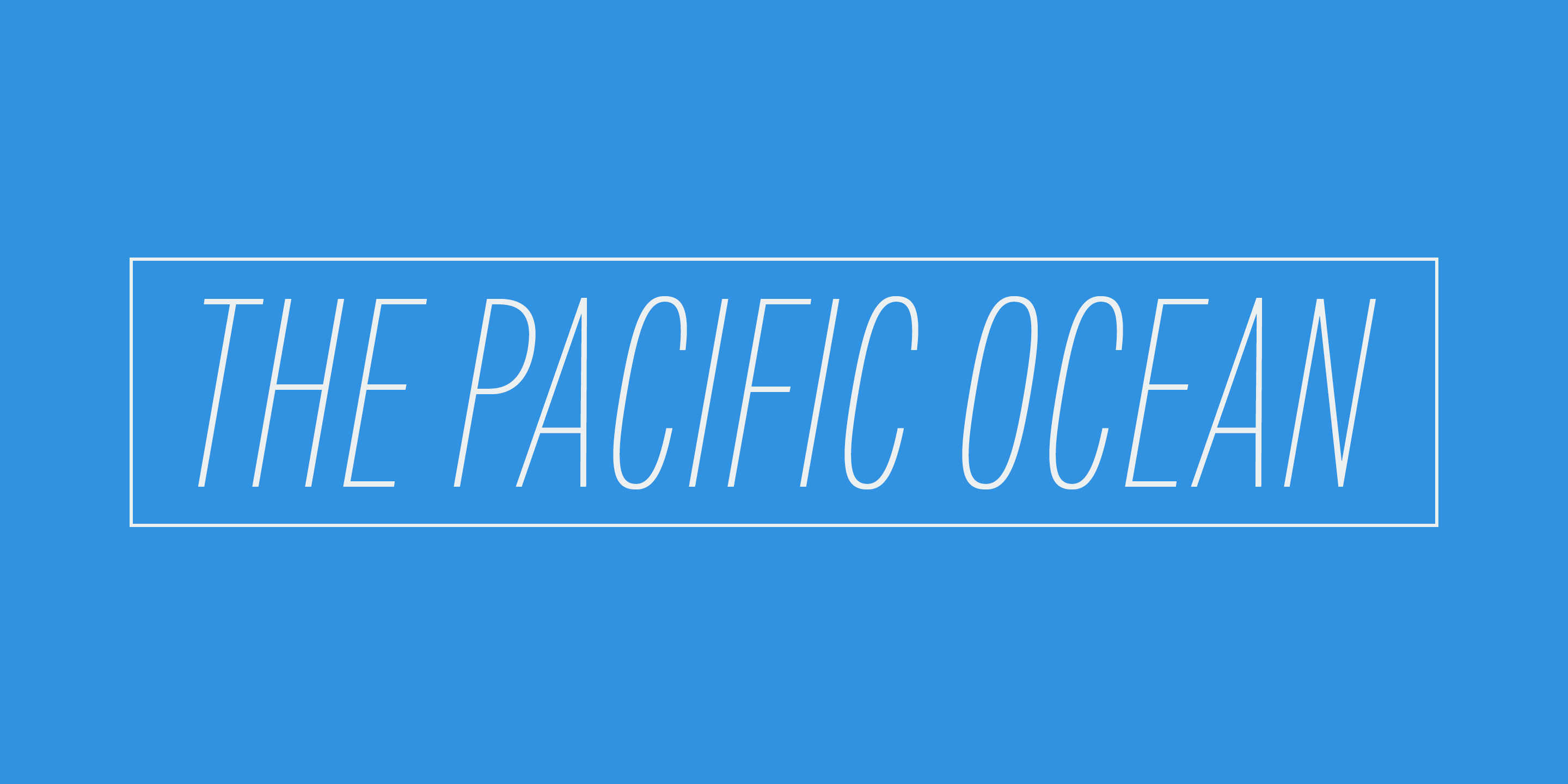
The Fairweather Font is exceptionally versatile and well-suited for projects that aim for a friendly yet sophisticated aesthetic. Its often humanist sans-serif design, characterized by open, legible forms and a subtle warmth, makes it an excellent choice for lifestyle branding, contemporary editorial layouts, and inviting website interfaces. It's ideal for packaging for artisanal products, independent coffee shops, and community-focused organizations where an authentic and welcoming feel is desired. Furthermore, consider Fairweather Font for blog headers, social media graphics, and personal stationery that need to convey warmth and genuine appeal. Its clarity and balanced proportions also make it perfect for educational materials and user-friendly digital applications.
What makes the Fairweather Font so exciting is its ability to strike a perfect balance between professional polish and approachable charm. It often features subtly rounded corners or a handcrafted touch that softens its impact without sacrificing legibility. This characteristic allows it to communicate a sense of reliability, friendliness, and modern sensibility, making your message resonate with genuine appeal. It’s a font that doesn't just display text; it creates a connection, adding a layer of contemporary warmth and inviting sophistication to any creative endeavor. Its distinctive aesthetic ensures your work will appear polished, personable, and highly effective.
The Fairweather Font family typically boasts a comprehensive range of weights to maximize its utility and allow for robust typographic hierarchies. You'll often find a wide selection, from Thin and Light to Regular, Medium, SemiBold, and Bold, usually accompanied by corresponding italic styles. More extensive families might even include ExtraBold or Black weights, providing even greater flexibility for creating distinct visual impacts, from delicate headlines to strong emphasis. This broad spectrum ensures designers can maintain a consistent visual theme while adapting the font to diverse design needs and contexts.